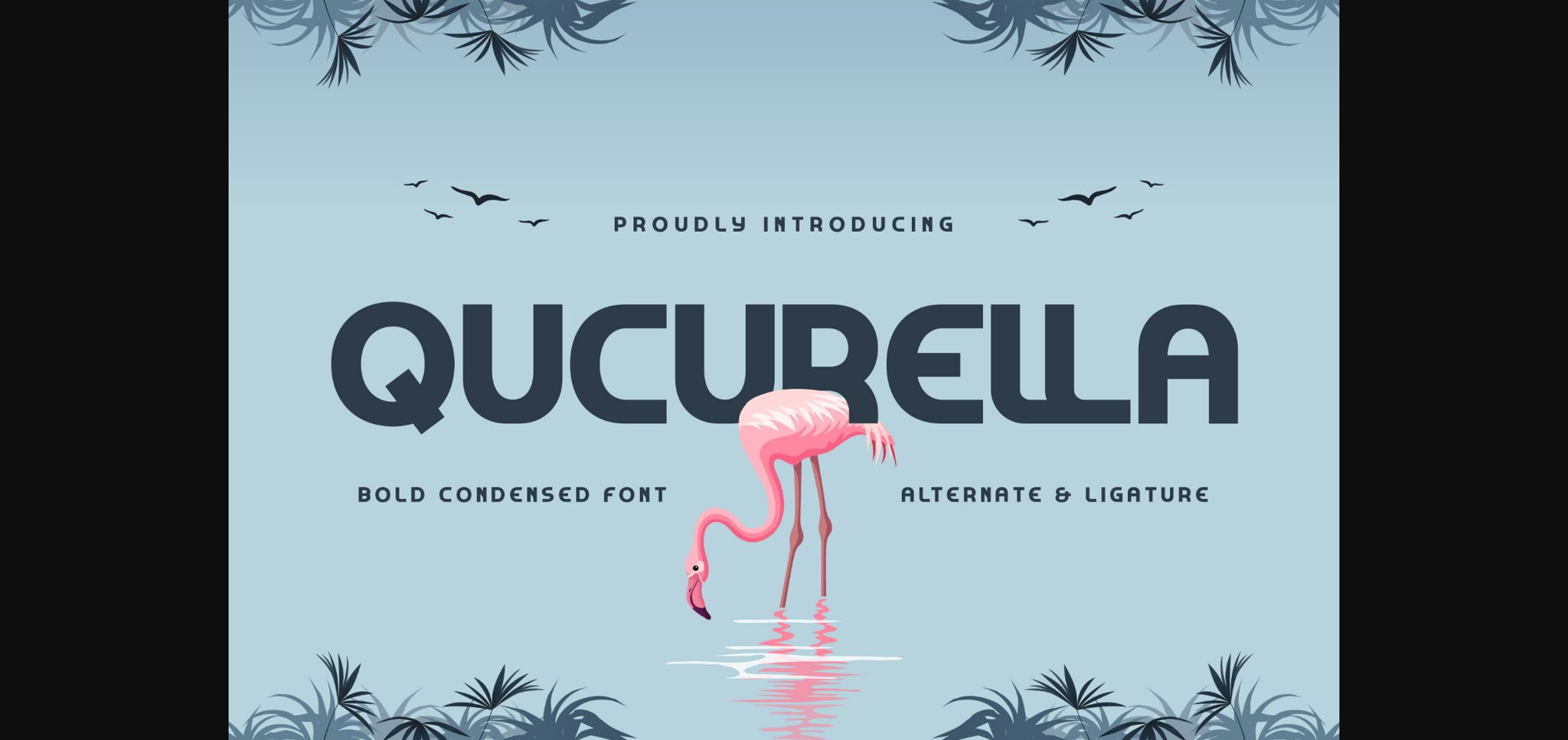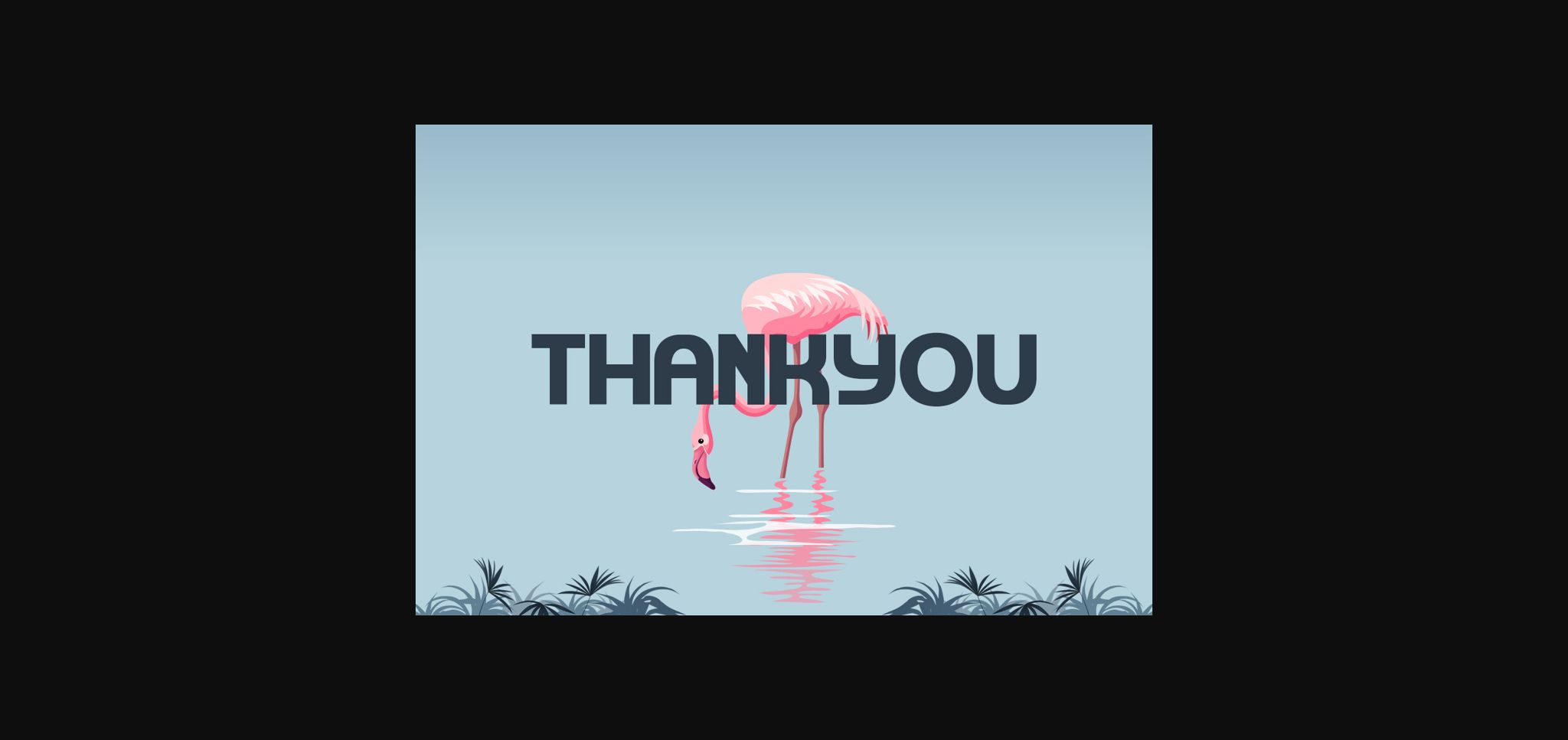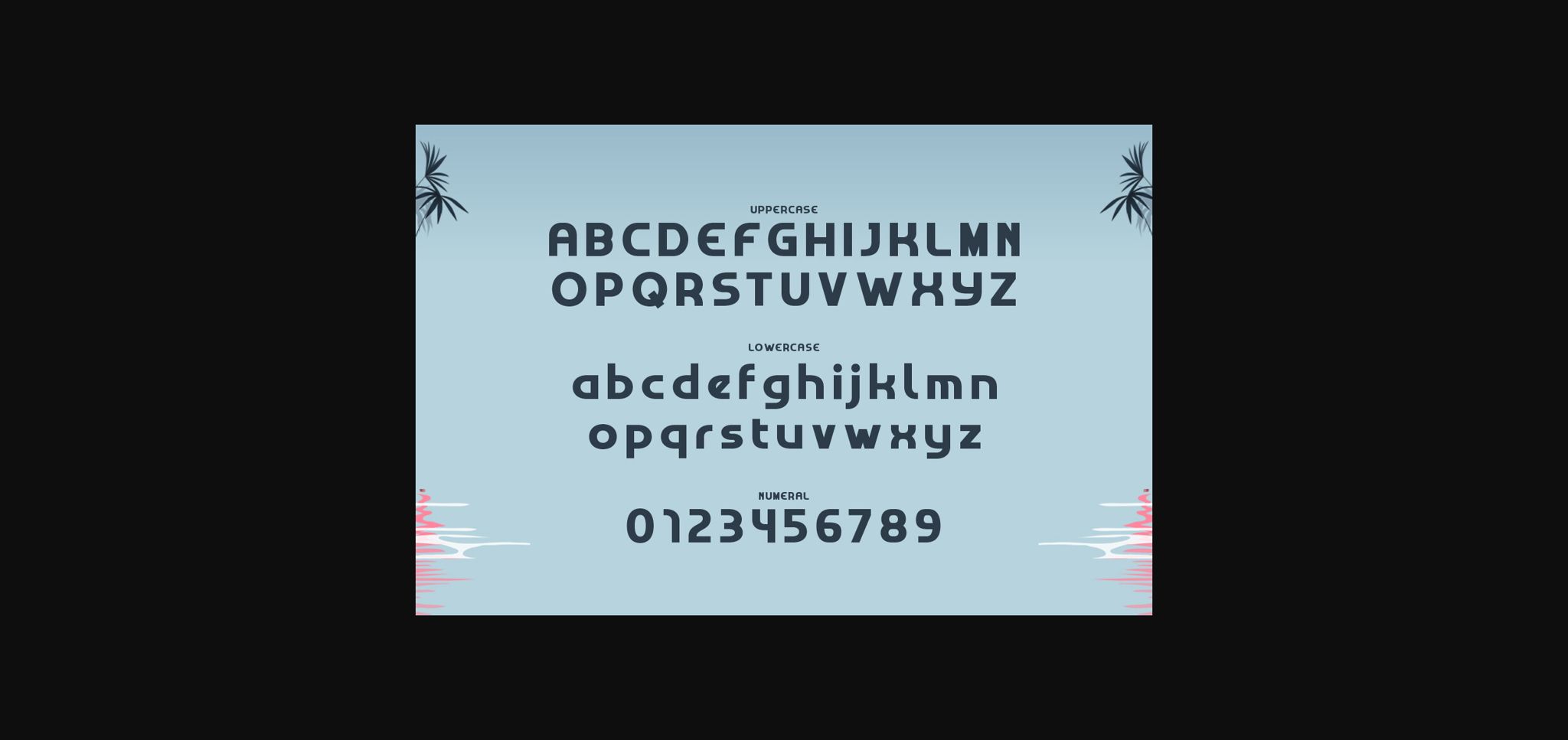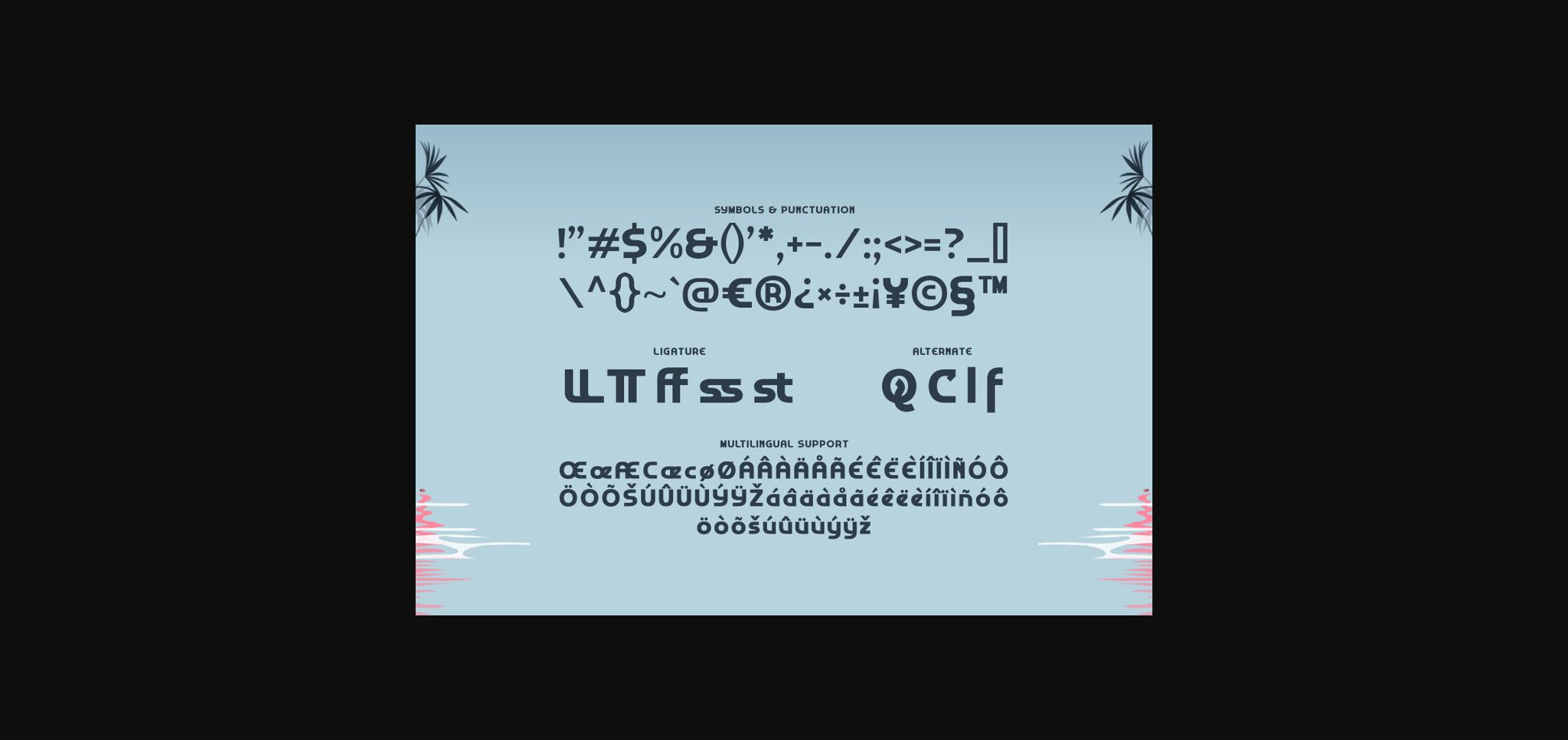
About Qucurella Font
Unleash the boldness of “Qucurella” – a condensed font that commands attention and leaves a lasting impact! Embrace the versatility of “Qucurella” as it effortlessly elevates your designs. Whether you’re working on branding for edgy startups, impactful packaging, sleek magazine covers, or captivating social media graphics, this font will captivate your audience with its bold and condensed style.